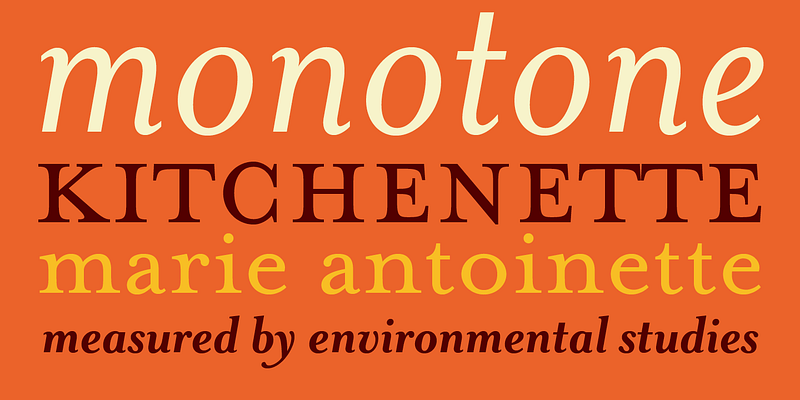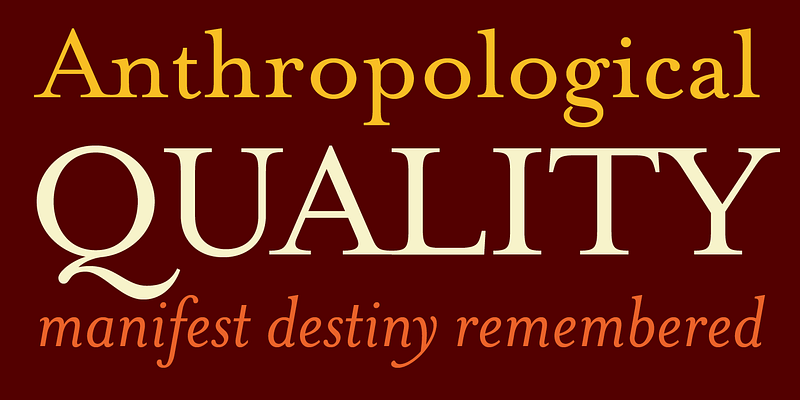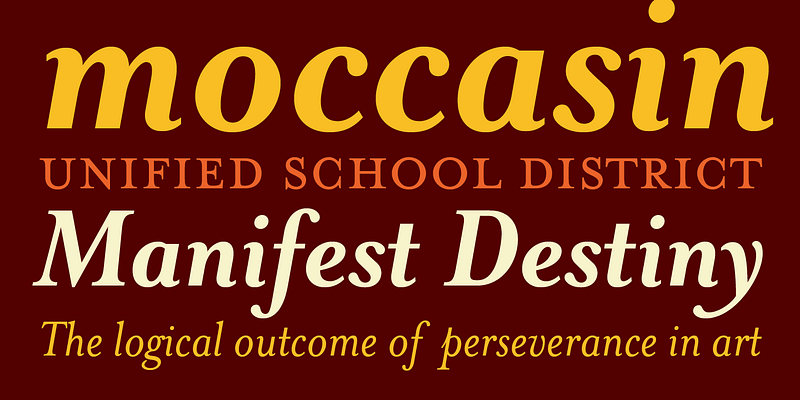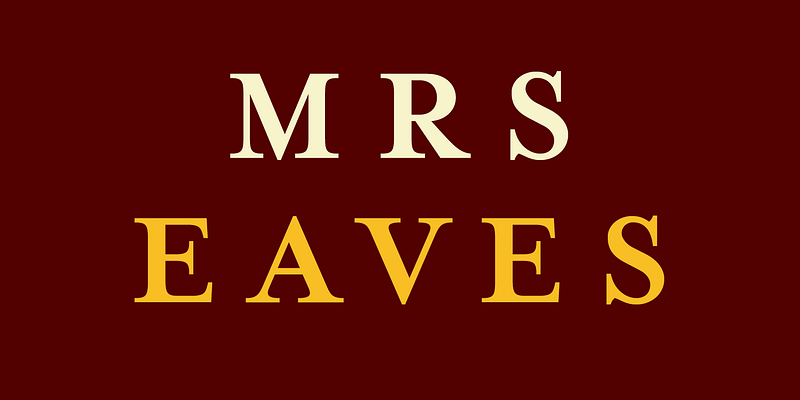
Originally designed in 1996, Mrs Eaves was Zuzana Licko’s first attempt at the design of a traditional typeface. It was styled after Baskerville, the famous transitional serif typeface designed in 1757 by John Baskerville in Birmingham, England. Mrs Eaves was named after Baskerville’s live in housekeeper, Sarah Eaves, whom he later married.
One of Baskerville’s intents was to develop typefaces that pushed the contrast between thick and thin strokes, partially to show off the new printing and paper making techniques of his time. As a result his types were often criticized for being too perfect, stark, and difficult to read.
Licko noticed that subsequent interpretations and revivals of Baskerville had continued along the same path of perfection, using as a model the qualities of the lead type itself, not the printed specimens. Upon studying books printed by Baskerville at the Bancroft Library in Berkeley, Licko decided to base her design on the printed samples which were heavier and had more character due to the imprint of lead type into paper and the resulting ink spread. She reduced the contrast while retaining the overall openness and lightness of Baskerville by giving the lower case characters a wider proportion. She then reduced the x-height relative to the cap height to avoid increasing the set width.
There is something unique about Mrs Eaves and it’s difficult to define. Its individual characters are at times awkward looking—the W being narrow, the L uncommonly wide, the flare of the strokes leading into the serifs unusually pronounced. Taken individually, at first sight some of the characters don’t seem to fit together. The spacing is generally too loose for large bodies of text, it sort of rambles along. Yet when used in the right circumstance it imparts a very particular feel that sets it clearly apart from many likeminded types. It has an undefined quality that resonates with people. This paradox (imperfect yet pleasing) is perhaps best illustrated by design critic and historian Robin Kinross who has pointed out the limitation of the “loose” spacing that Licko employed, among other things, yet simultaneously designated the Mrs Eaves type specimen with an honorable mention in the 1999 American Center for Design competition. Proof, perhaps, that type is best judged in the context of its usage.
Even with all its shortcomings, Mrs Eaves has outsold all Emigre fonts by manyfold, and through major type distributors such as MyFonts, Mrs Eaves has been among the best selling types for years, listed among such classics as Helvetica, Univers, Bodoni and Franklin Gothic. Due to its commercial and popular success it has come to define the Emigre type foundry.
While Licko initially set out to design a traditional text face, we never specified how Mrs Eaves could be best used. Typefaces will find their own way. But if there’s one particular common usage that stands out, it must be literary—Mrs Eaves loves to adorn book covers and relishes short blurbs on the flaps and backs of dust covers. Trips to bookstores are always a treat for us as we find our Mrs Eaves staring out at us from dozens of book covers in the most elegant compositions, each time surprising us with her many talents.